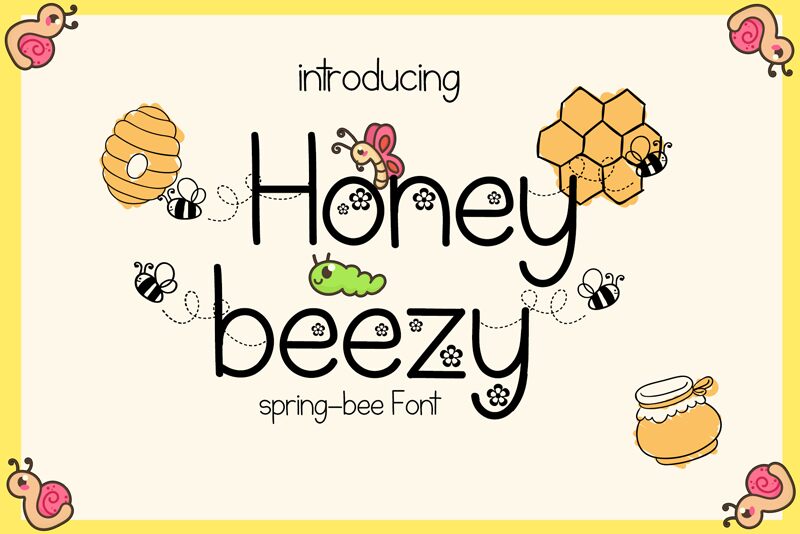
Honey Beezy, a delightful creation by Dm Letter Studio - Dimas Prasetyo, is a charming display font that exudes a handwritten touch with its comic width style. This light-weight typeface is perfect for projects that demand a playful and lively vibe. Whether you're designing children's books, greeting cards, or even creating eye-catching posters and social media graphics, Honey Beezy will inject a sense of whimsy into your creations. Its unique blend of comic-inspired aesthetics and handwritten charm makes it an ideal choice for those seeking to infuse their designs with joy and creativity.
Honey Beezy